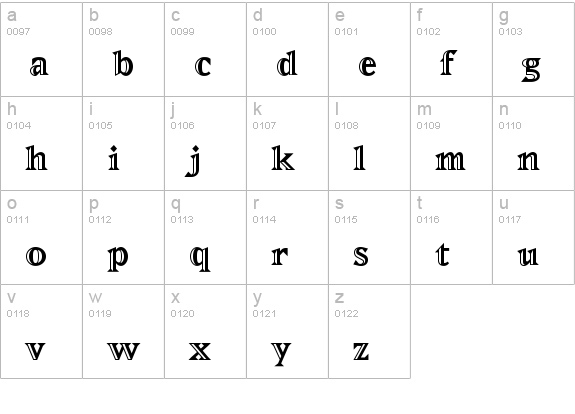
MatrixInlineExtraBold Font Details
MatrixInlineExtraBold font is a stunning and attention-grabbing typeface that exudes strength and modernity. Its bold and inline design makes it perfect for creating impactful headlines and titles that command attention. The sharp edges and clean lines of MatrixInlineExtraBold give it a sleek and futuristic look that is sure to make your designs stand out. Best of all, MatrixInlineExtraBold is available for free download at FontsMarket.com, making it accessible to anyone looking to add a touch of boldness to their projects. Whether you're designing posters, logos, or website headers, this font is sure to make a powerful statement. Download MatrixInlineExtraBold today and take your designs to the next level.